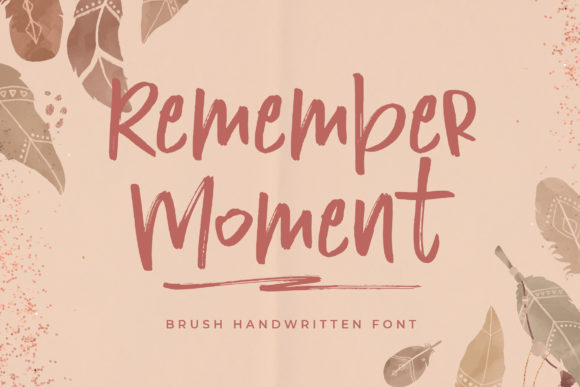
Introducing Remember Moment Font, a captivating script font that whispers elegance with every stroke. Its meticulously crafted curves and delicate flourishes evoke a sense of nostalgia and charm. Remember Moment beckons you to create designs that dance with personality and leave a lasting impression.
Imagine your business letters adorned with Remember Moment's graceful lines. It will effortlessly transform ordinary correspondence into works of art, capturing attention and making a statement. Each letter becomes a testament to your professionalism and meticulous attention to detail.
Whether you're crafting wedding invitations that evoke a timeless allure or designing eye-catching posters that draw the gaze, Remember Moment is your muse. Its versatility lends itself to a myriad of projects, from branding materials that exude sophistication to social media posts that spark engagement.
With Remember Moment, you have the power to leave a lasting impression on your audience. Its unique and expressive character will infuse your designs with a touch of magic, creating a connection that transcends the mundane.
So, embrace the charm of Remember Moment today and watch your creations come alive with an air of timeless elegance and artistic flair.